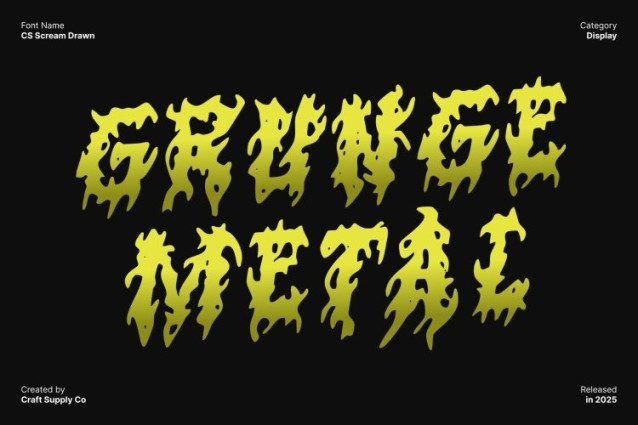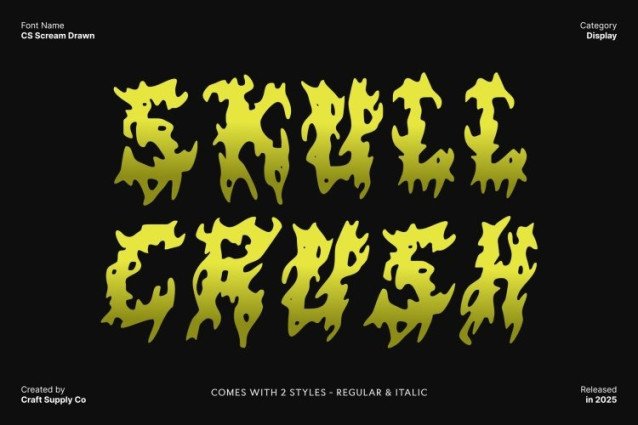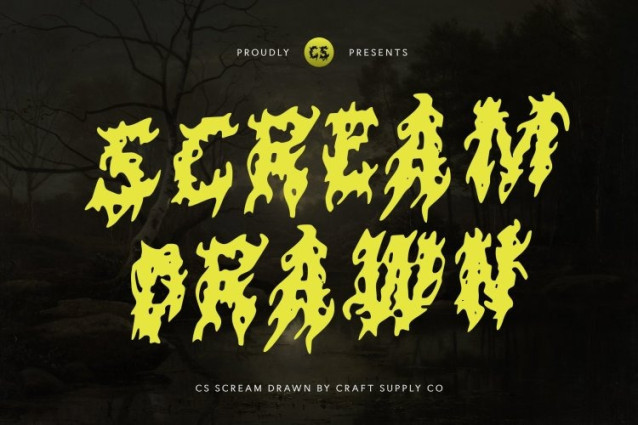
CS Scream Drawn Font
CS Scream Drawn Font This is a black metal display font that embraces raw aggression through jagged spikes, sharp edges, and chaotic strokes. Each letter feels violent and untamed, channeling the darkness and intensity of extreme music culture. Its distorted structure rejects cleanliness and symmetry, creating a powerful visual impact that feels dangerous, rebellious, and uncompromising. This font is designed to shock, provoke, and command attention.
Chaotic Strokes with Handcrafted Brutality
The rough, uneven strokes enhance the font’s savage personality, giving it a hand-forged, almost ritualistic feel. Every character looks carved, scratched, or torn, amplifying the sense of chaos and raw emotion. This aggressive texture adds authenticity, making the font feel alive and brutally expressive rather than polished or artificial.
Designed for Extreme Visual Impact
This font excels as a display font for bold, high-impact applications. It is ideal for band logos, album covers, posters, merchandise, and underground branding where intensity and attitude matter most. The dramatic shapes ensure strong visual dominance, especially at large sizes, making it impossible to ignore.
Perfect for Dark, Edgy, and Underground Projects
Whether you’re designing for black metal bands, hardcore events, horror visuals, or rebellious creative projects, delivers a true spirit of extremity. It captures chaos, darkness, and raw emotion in typographic form, transforming text into a weapon of expression that feels brutal, fearless, and unmistakably powerful.